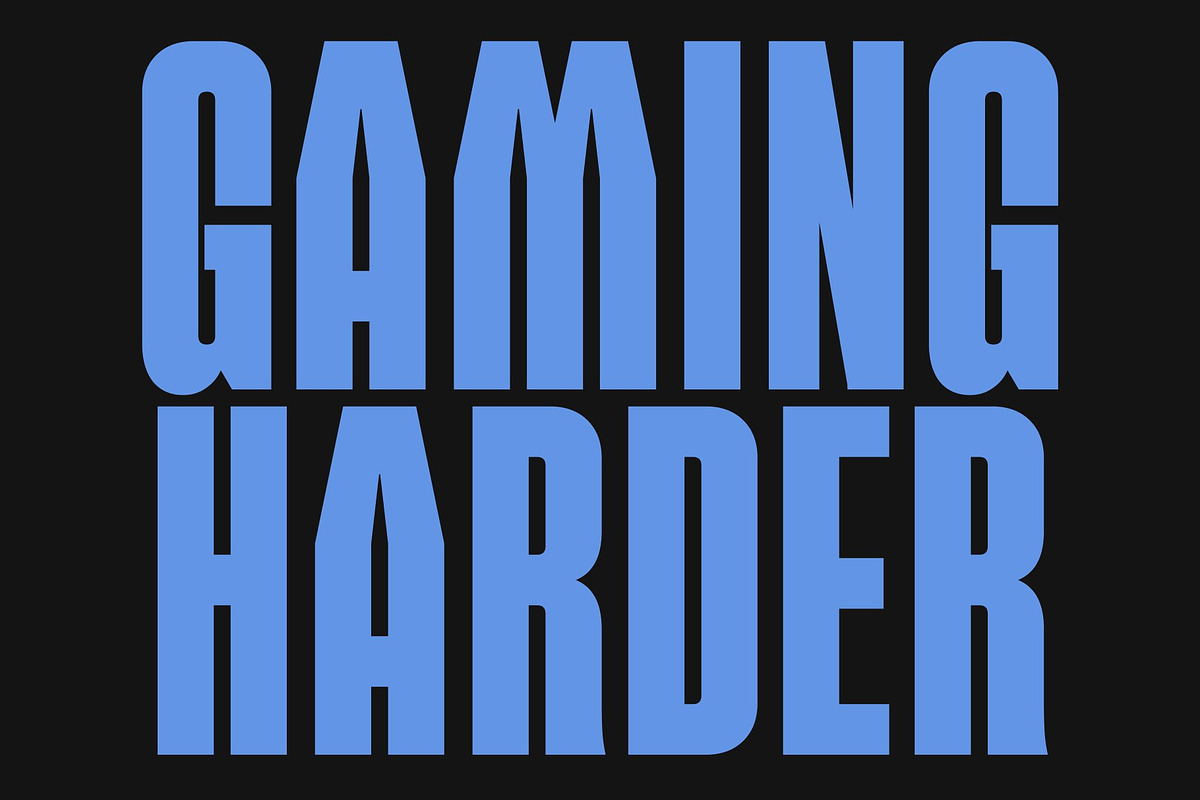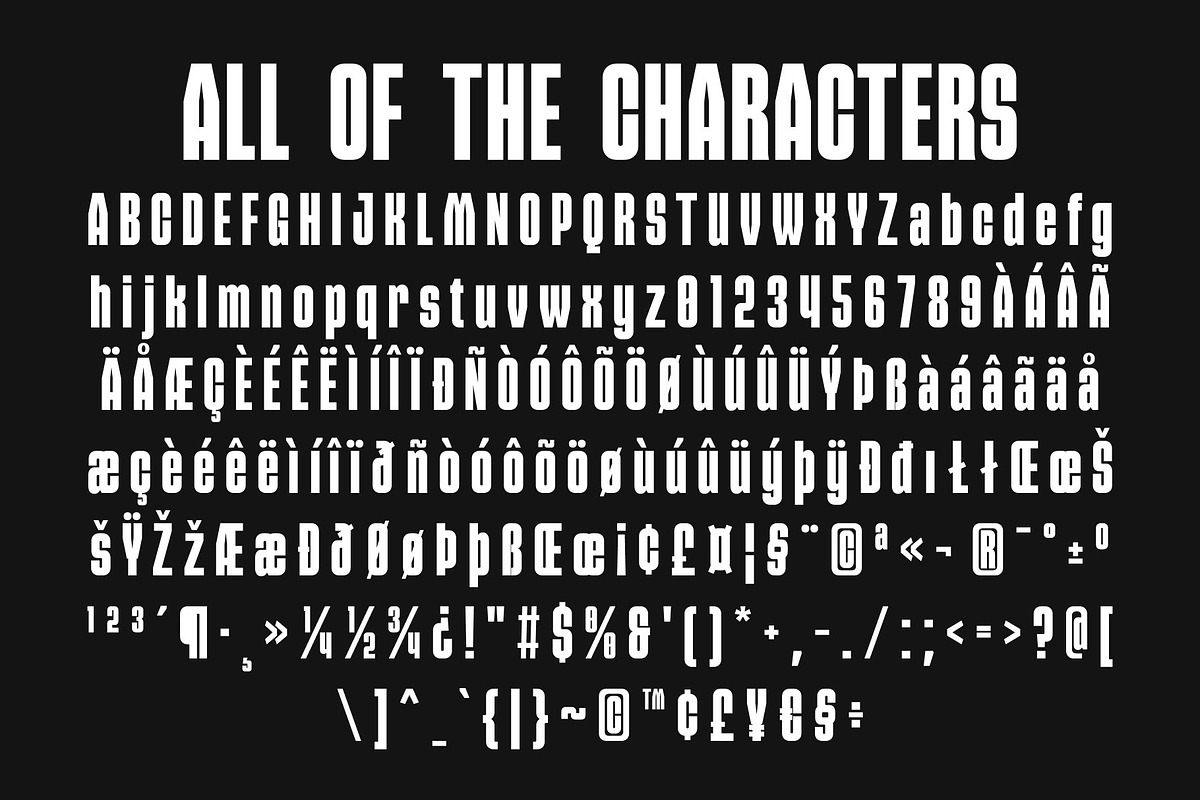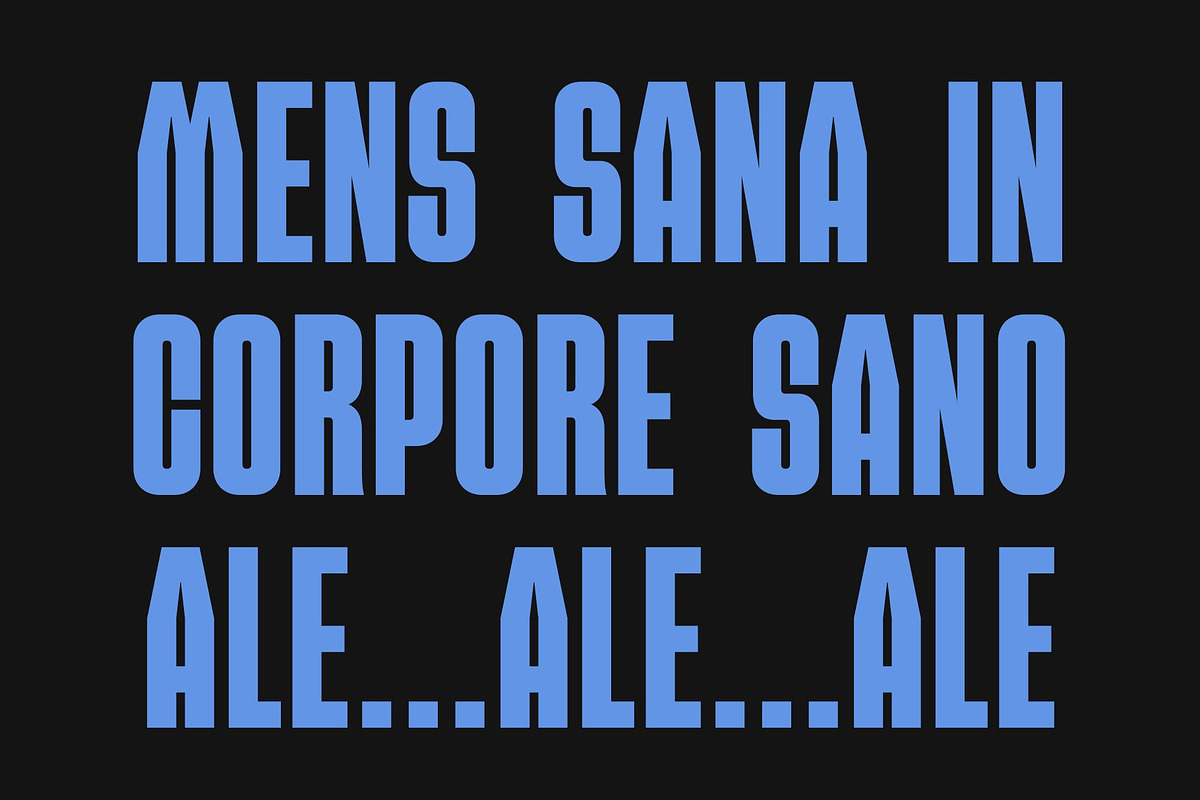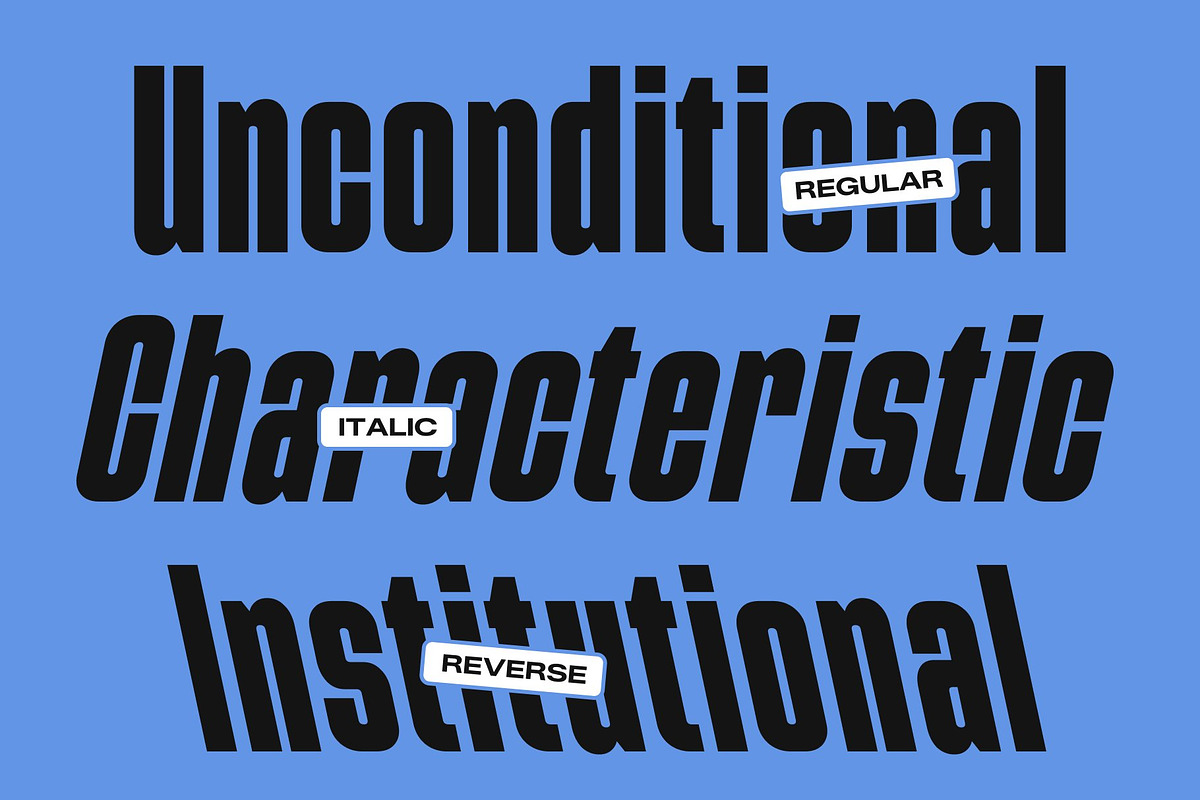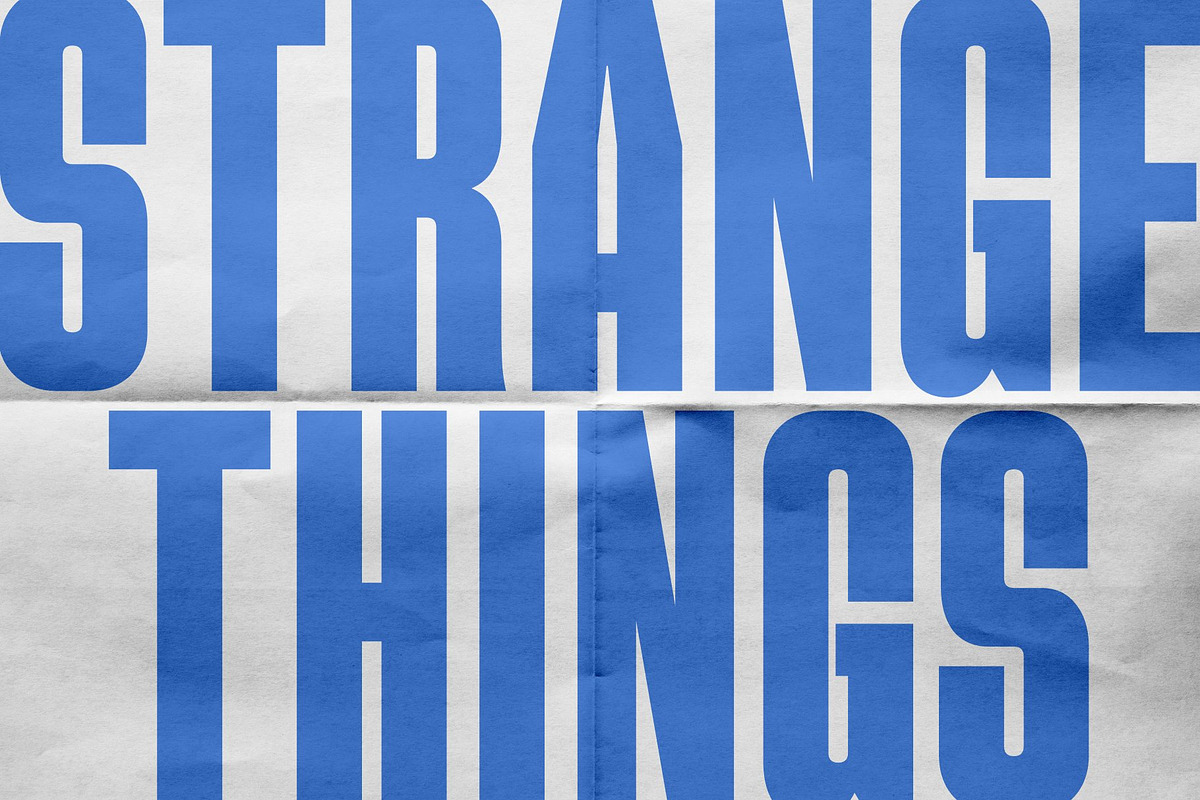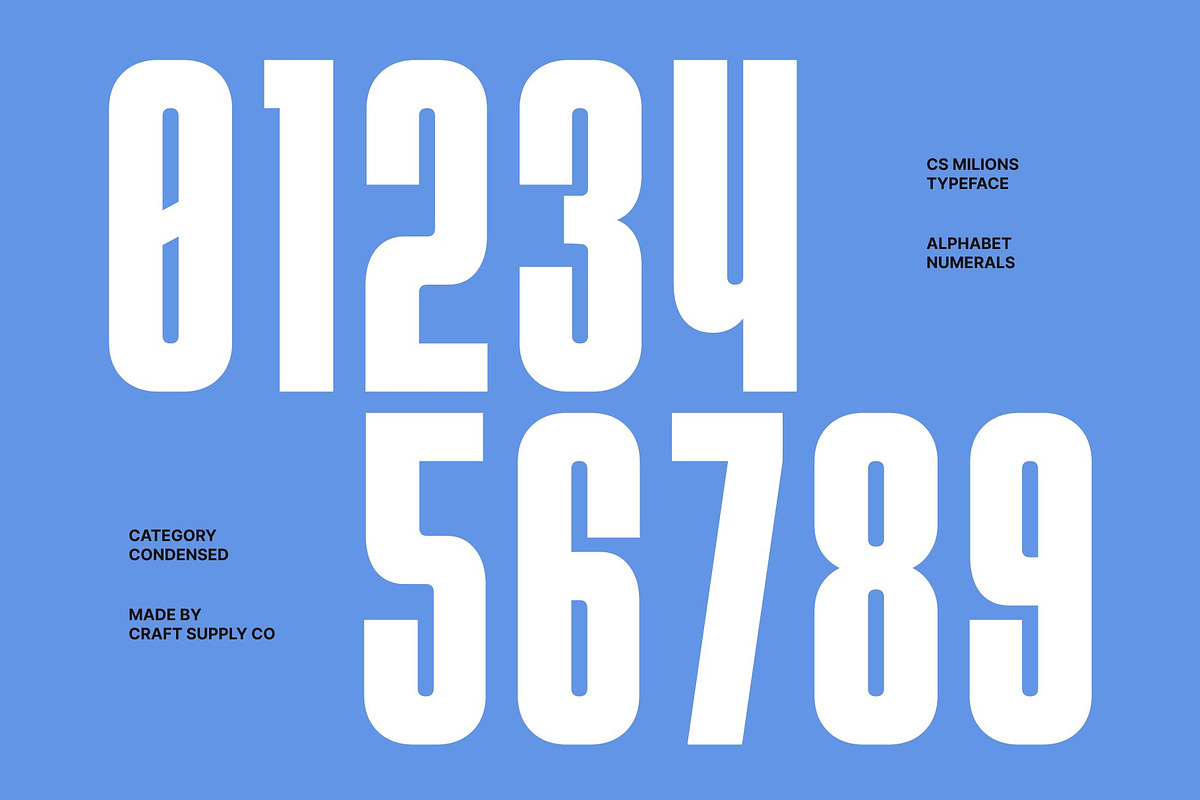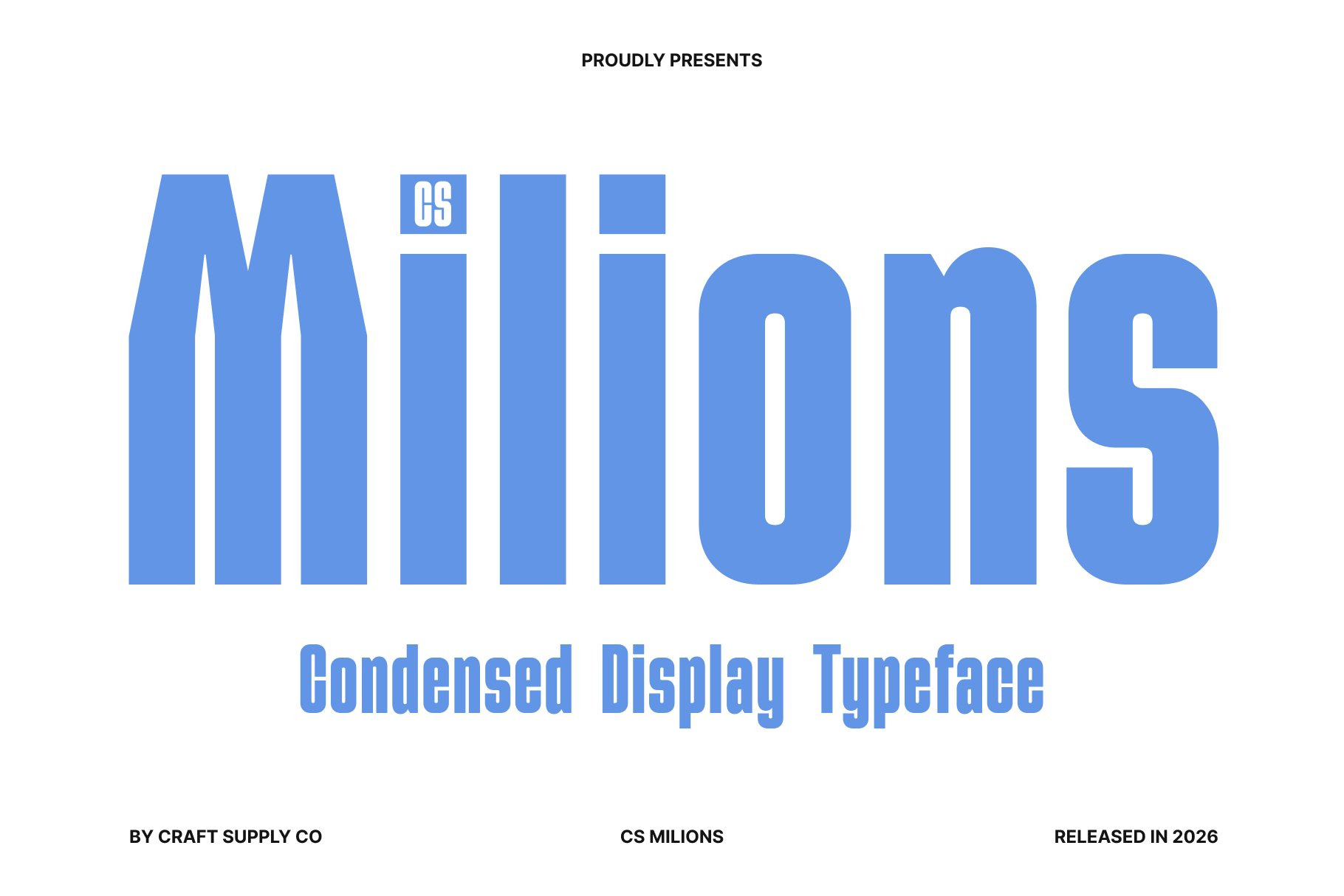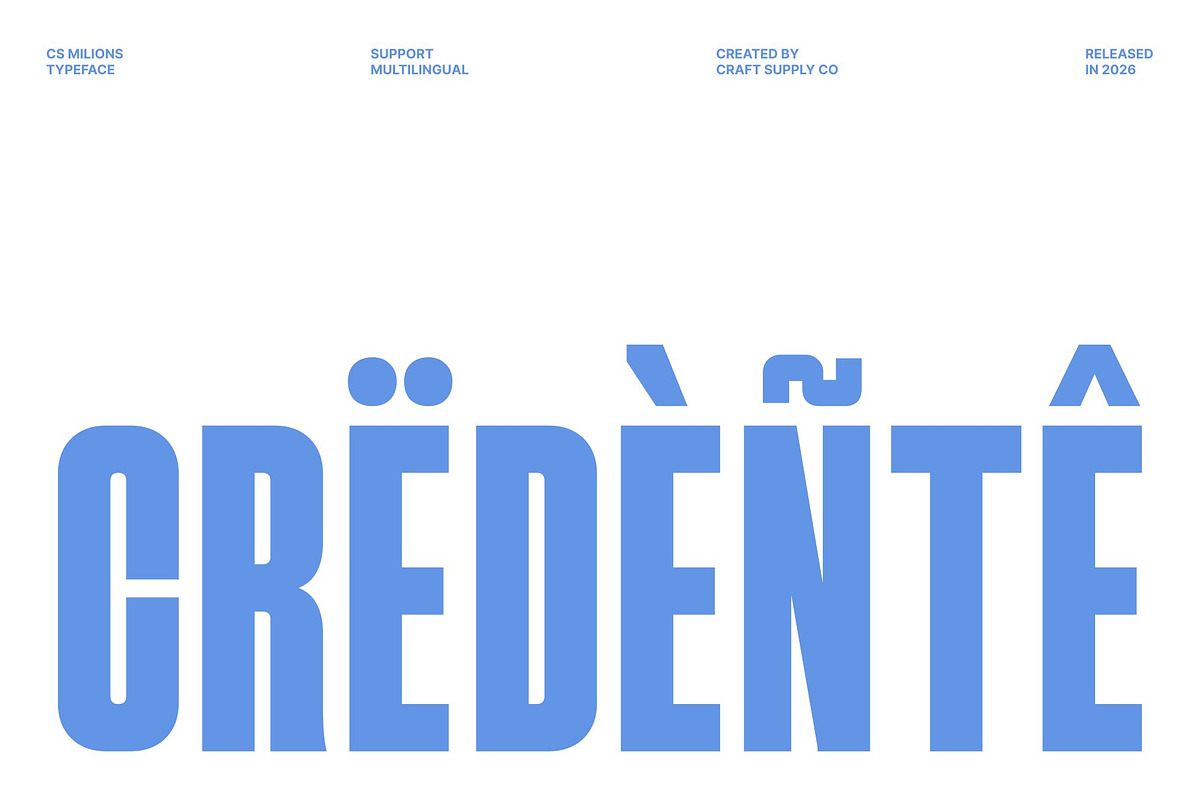
CS Milions – Condensed Font
CS Milions – Modern Condensed Display Font with Industrial Impact
Modern Condensed Display Font with Strong Presence This is a modern condensed display font crafted to deliver powerful visual impact in tight spaces. With bold proportions and an industrial-inspired personality, this typeface transforms headlines into commanding design statements. It is built for designers who need typography that feels strong, efficient, and unmistakably modern.
Designed for Tight and Dynamic Layouts The condensed structure allows more text to fit into narrow compositions while preserving clarity and balance. Each letterform is carefully engineered to appear tall, compact, and highly legible, ensuring your message remains clear even in dense layouts. This efficiency makes this font ideal for posters, banners, and attention-grabbing titles.
Industrial Character with Clean Precision This font combines sturdy strokes and geometric forms to create a powerful industrial aesthetic. The clean construction keeps the font modern and versatile, while the bold shapes add strength and authority. This balance gives the typeface a confident and professional tone.
Perfect for Headlines, Posters, and Branding From bold advertising and editorial headlines to branding and digital campaigns, this font adapts effortlessly across creative projects. Its blend of readability, compact efficiency, and industrial boldness ensures your typography stands out with clarity, strength, and contemporary style.
CS Milions Regular
CS Milions Italic
CS Milions Reverse Italic